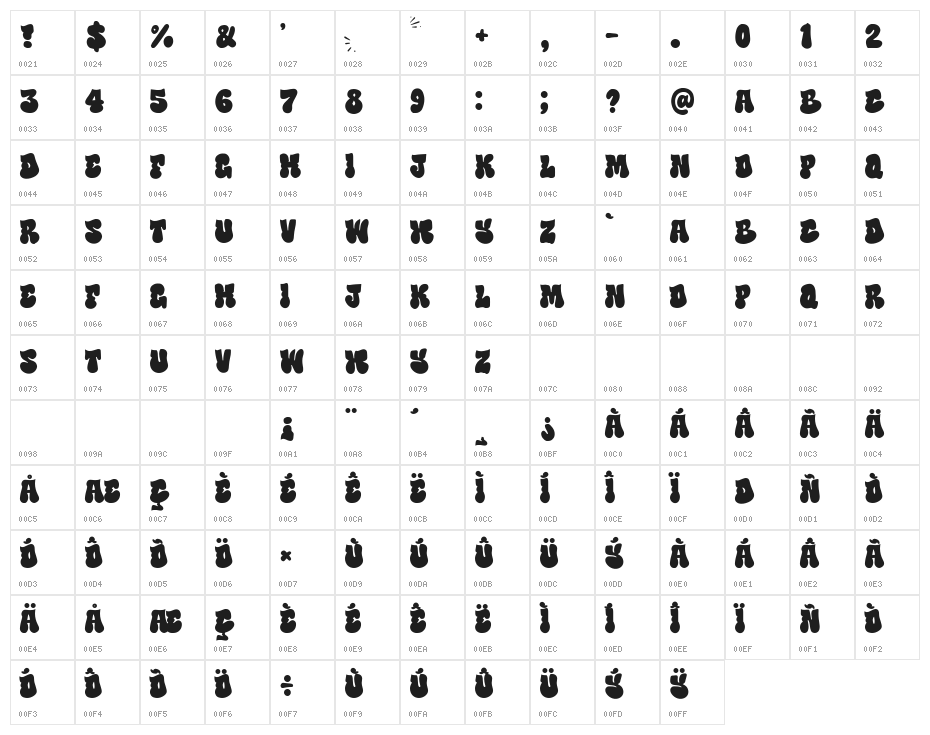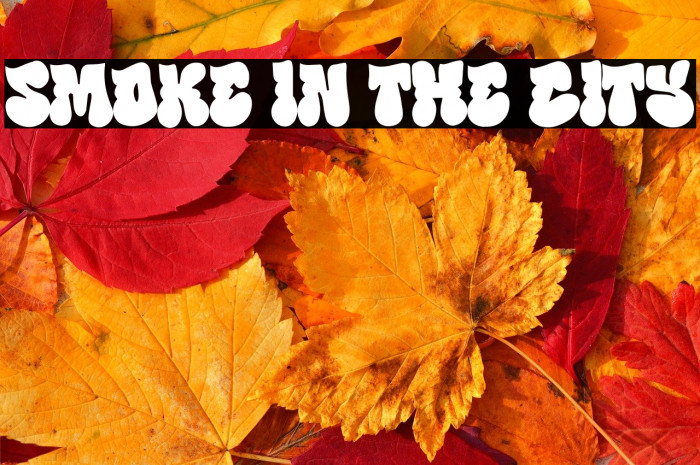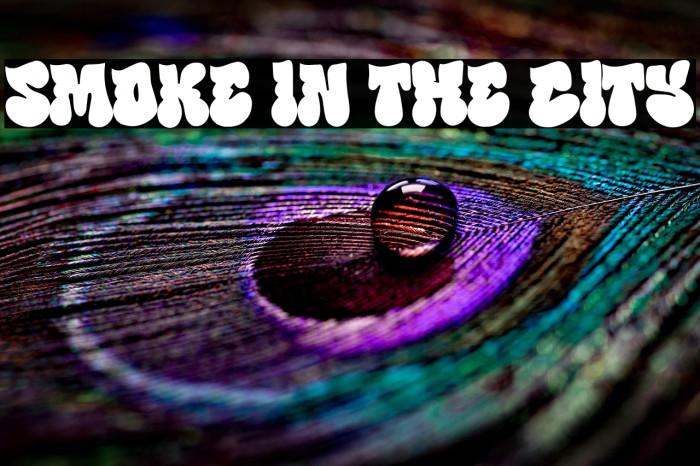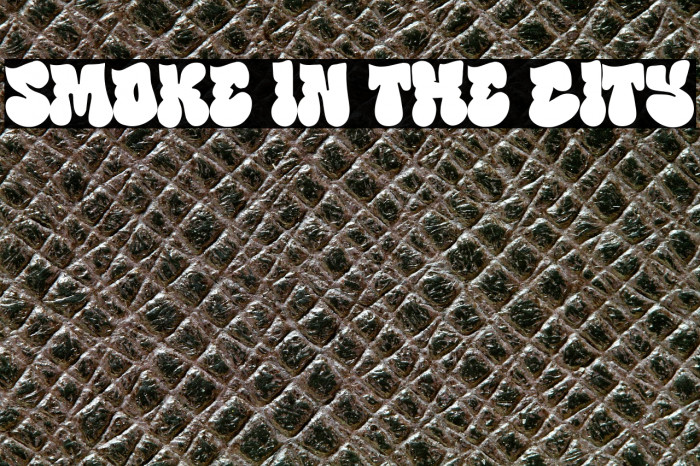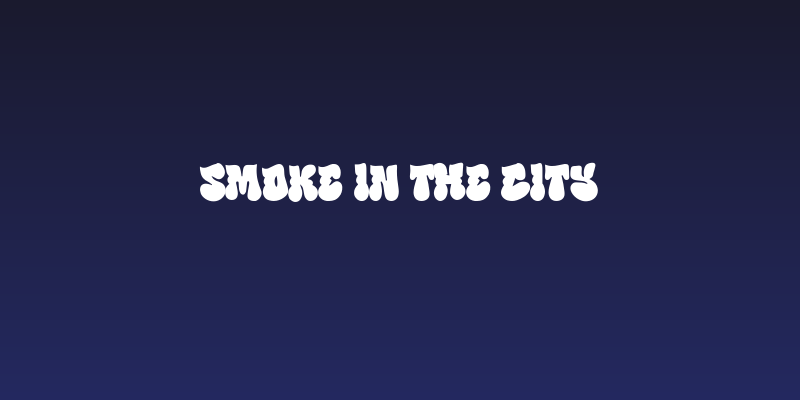
Smoke in the City Font
Smoke in the City Description
A bold, playful font with a bubbly, inflated appearance, reminiscent of smoke or clouds.
| Overall Style | Playful, Decorative |
| Proposed Projects | Posters, children's books, playful branding. |